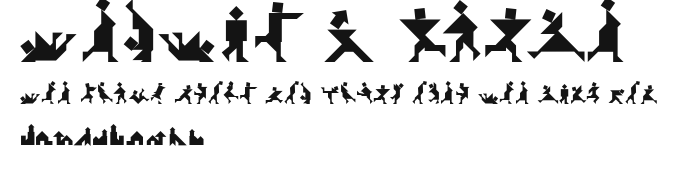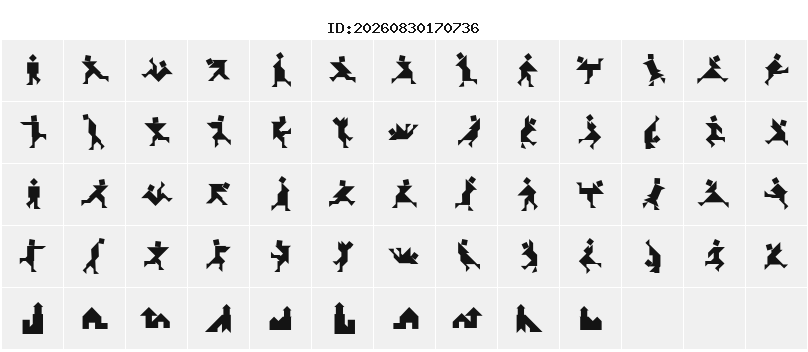
• Font Name: Textan - Piple
• Full Font Name: Textan - Piple
• Copyright: © Richard D. Parker & Apostrophic Laboratories. All rights reserved. apostrofe@mail for more info. Derived from the Chinese game "ch'i ch'ae pan" or "Seven-Board of Cunning" . First printed in the time of the Ch'ing emperor Chia Ch'ing (1796-1820).
• Description: © Richard D. Parker & Apostrophic Laboratories. All rights reserved. apostrofe@mail for more info. Derived from the Chinese game "ch'i ch'ae pan" or "Seven-Board of Cunning" . First printed in the time of the Ch'ing emperor Chia Ch'ing (1796-1820).
About Textan - Piple.ttf